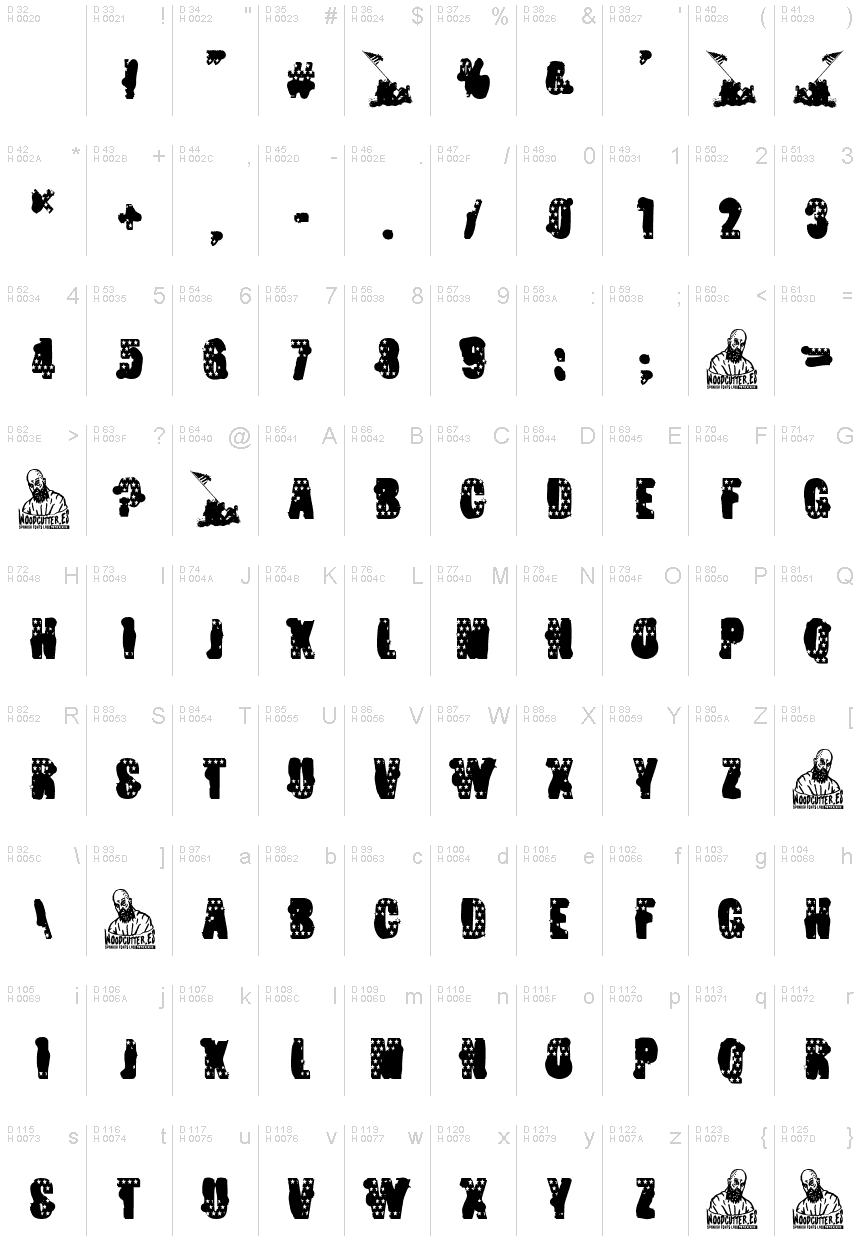
New Fathers Flag
New Fathers Flag, a creation by Woodcutter, is an extraordinary display font that exudes patriotism. With its decorative style and extra-bold weight, this font captures the essence of the United States Flag. The condensed width adds a touch of modernity and sophistication to any project it graces.
Perfect for branding campaigns seeking to evoke American pride or for designing eye-catching posters and banners that celebrate national holidays.
Let New Fathers Flag be your go-to choice when you want to infuse your designs with stars.